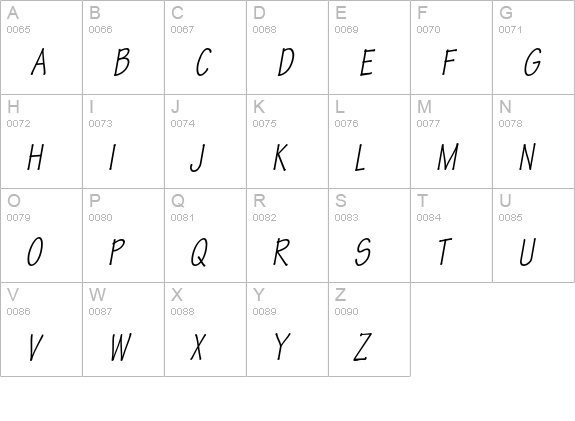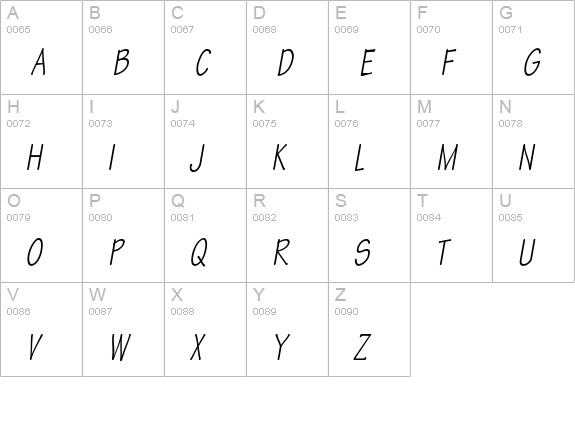
Tekton Pro Condensed Oblique Font Details
Tekton Pro Condensed Oblique is a distinctive, condensed-width, italic variant in the Tekton typeface family \xE2\x80\x94 well suited to design and typography projects.
Tekton Pro Condensed Oblique is a versatile and stylish font that adds a touch of sophistication to any design project. With its condensed and oblique design, this font is perfect for creating eye-catching headings, titles, and logos. The sleek and elegant lines of Tekton Pro Condensed Oblique make it a favorite among designers who want to make a bold statement. Whether used in print or digital media, this font is sure to grab attention and leave a lasting impression. One of the best things about Tekton Pro Condensed Oblique is that it is available for free. That's right, you can download this incredible font without spending a dime. Simply head over to FontsMarket.com and easily access this font to enhance your creative projects. Tekton Pro Condensed Oblique is not only visually appealing but also highly legible, making it suitable for a wide range of applications. From brochures and flyers to websites and presentations, this font will bring your content to life and engage your audience. Featuring a modern and contemporary design, Tekton Pro Condensed Oblique is a must-have for designers and creatives looking to add a touch of elegance to their work. Whether you're designing a magazine spread, creating a logo, or crafting a poster, this font will effortlessly elevate your designs. So why wait? Don't miss out on the opportunity to use Tekton Pro Condensed Oblique for free. Visit FontsMarket.com today and start incorporating this stunning font into your projects. With its versatility and timeless appeal, you'll be glad you did.